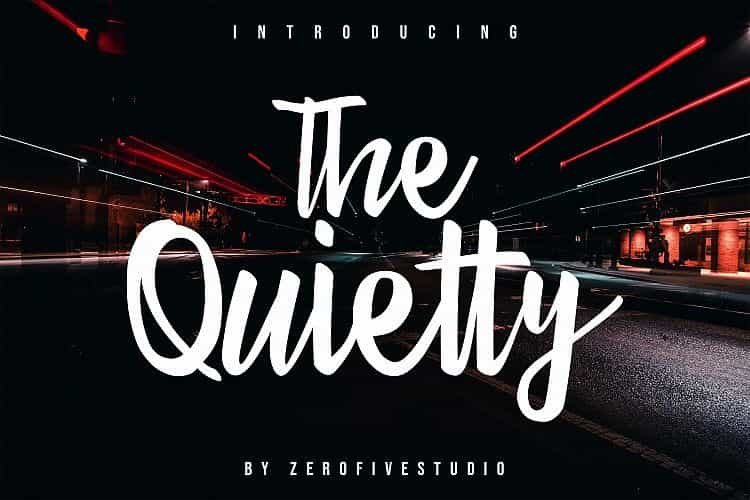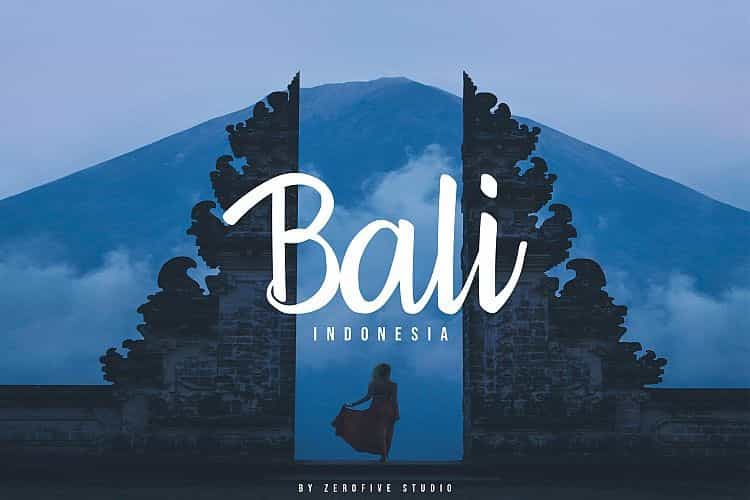
Discover The Quietty Script Font, part of the Brush Calligraphy collection—a versatile and unique font perfect for adding a personal touch to your projects. Download it for free and enjoy crafting designs with style, from invitations to social media posts. This font is available exclusively for personal use, giving you the freedom to create without limits. Unlock your creativity with The Quietty Script Font today!
The Quietty Script Font is a new fresh & modern script with a handmade calligraphy style, decorative characters and a dancing baseline. This is so beautiful for invitation like greeting cards, branding, business cards, quotes, posters, and many more!